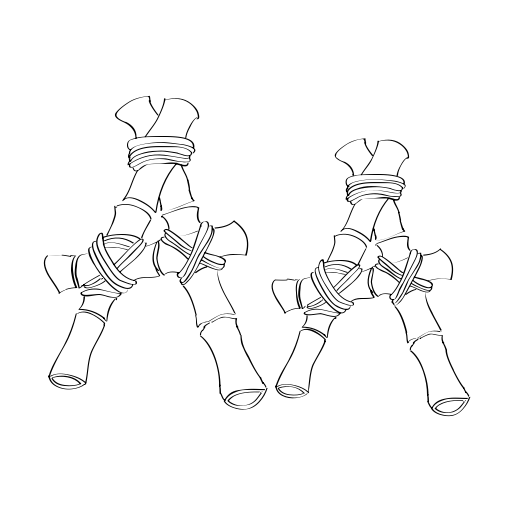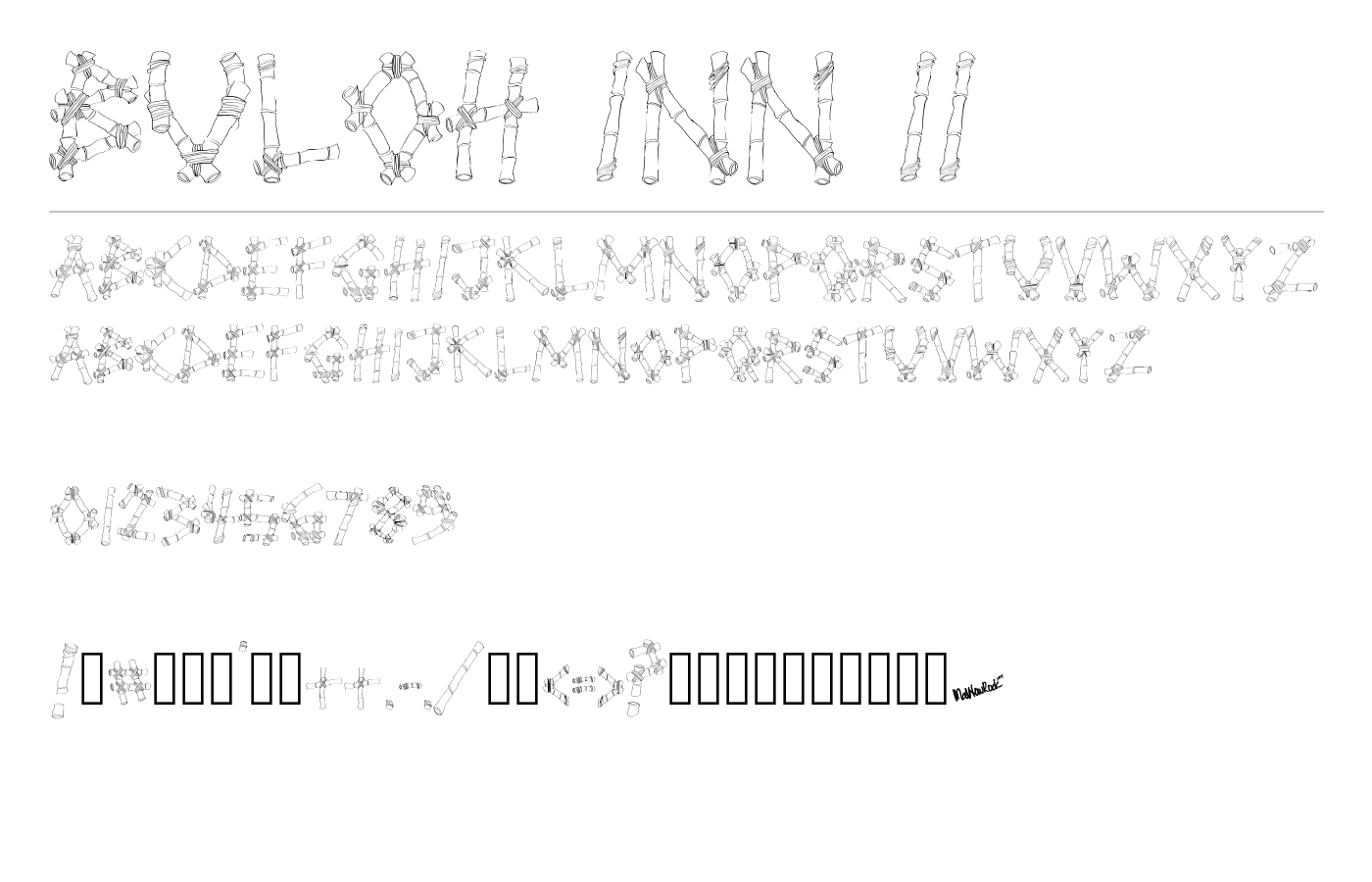
Buloh Inn II is a unique display font that creatively mimics bamboo sticks tied together, giving it an organic, handcrafted appearance. With its delicate line work and natural, irregular shapes, this font brings a rustic and artistic vibe, making it perfect for designs that want to evoke nature, craftsmanship, or cultural themes. It works well in logos, packaging, and decorative headlines where a distinctive, earthy style is desired.
BULOH INN II Font
About BULOH INN II Font